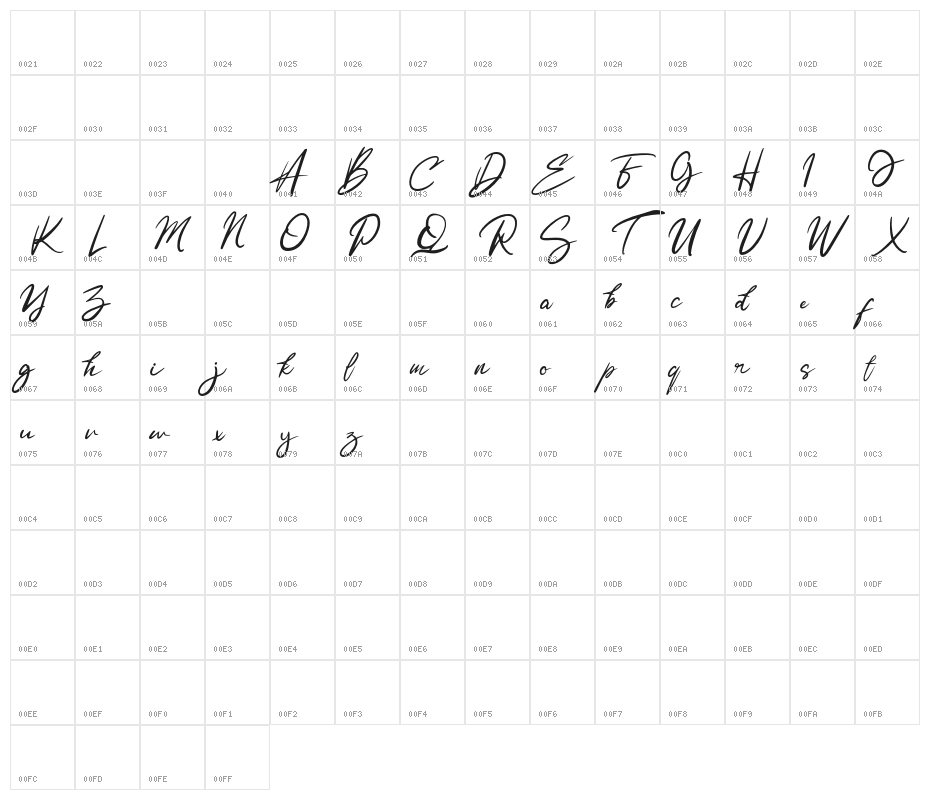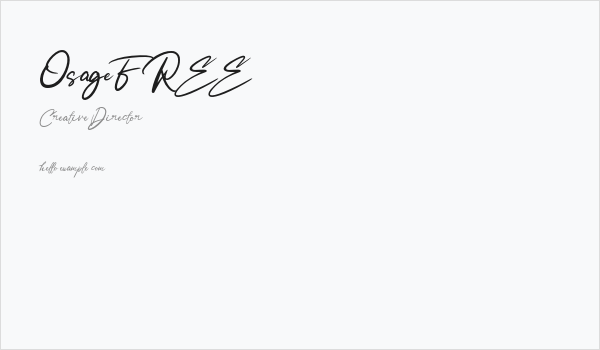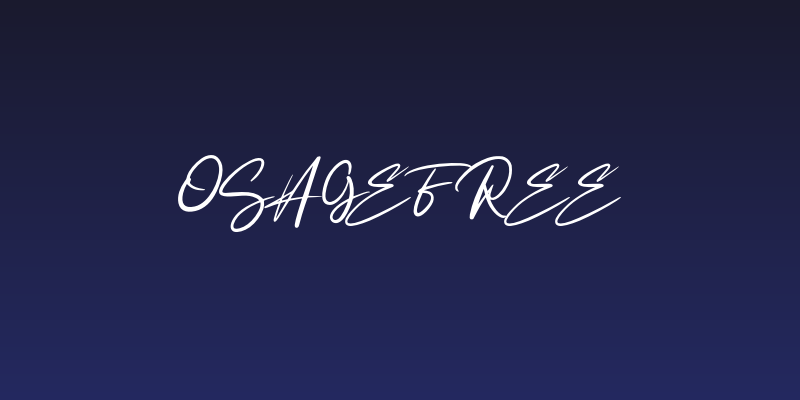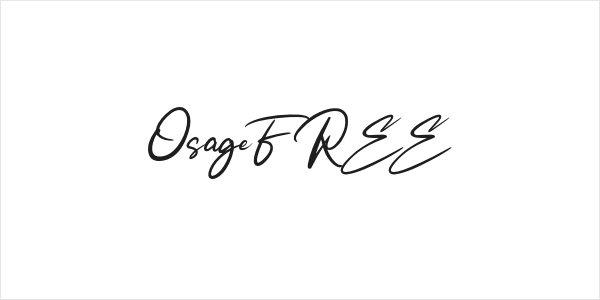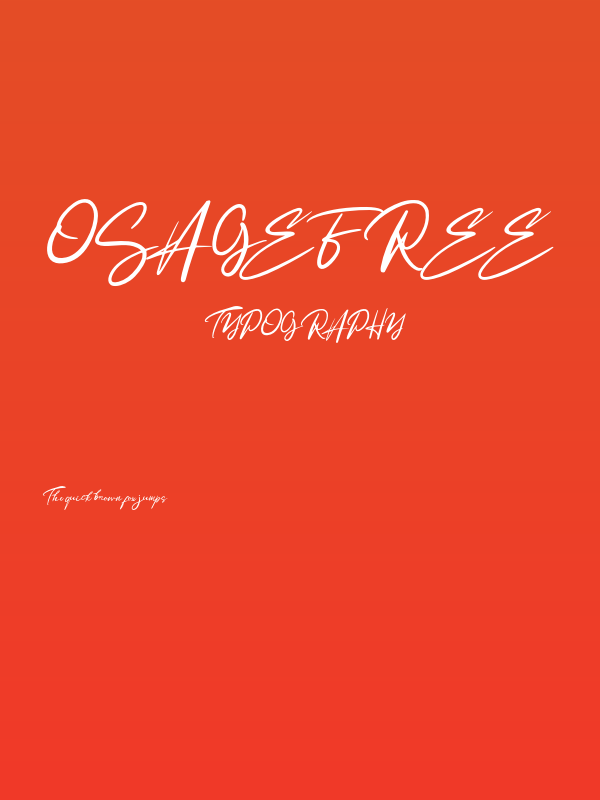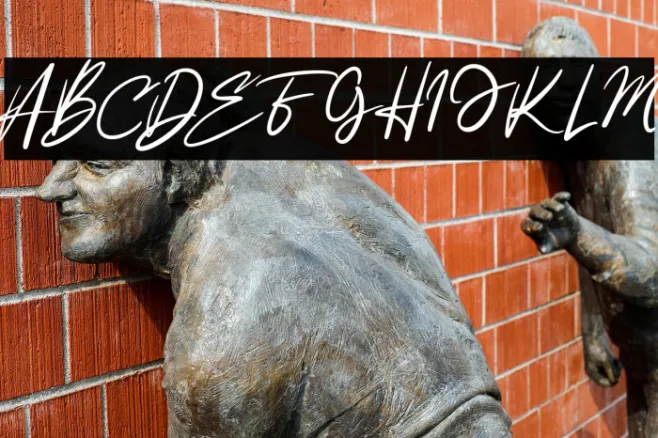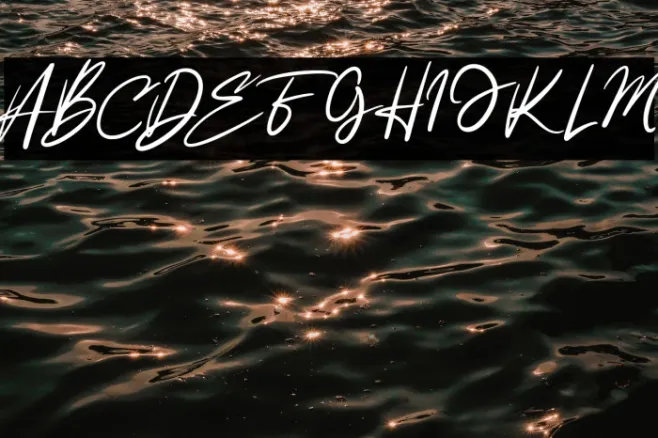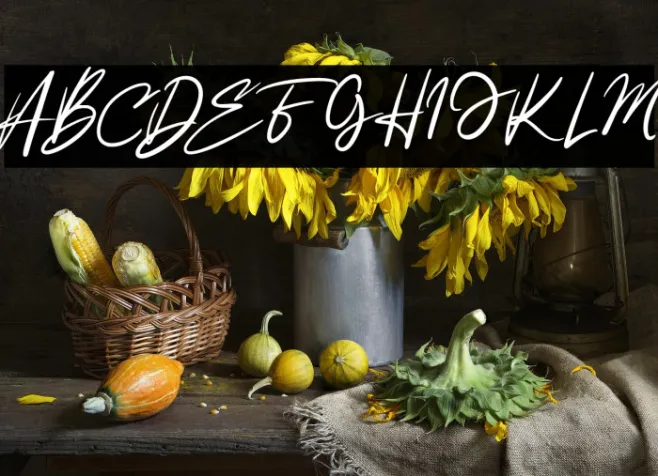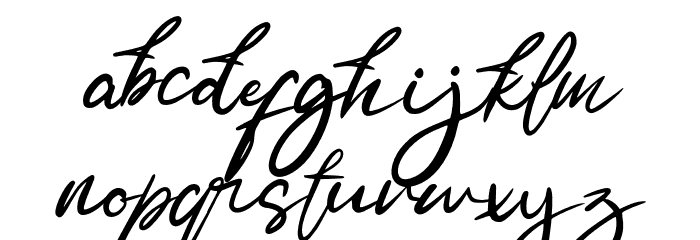
OsageFREE Font
OsageFREE Description
This font features a dynamic and flowing script style, characterized by its elegant and cursive letterforms. The strokes are smooth and connected, giving it a handwritten appearance that is both stylish and sophisticated. The uppercase letters are bold and prominent, while the lowercase letters maintain a consistent flow with slightly exaggerated loops and curves. The overall design is expressive, making it suitable for creative and artistic projects. The font's natural rhythm and fluidity make it ideal for conveying a sense of elegance and personal touch.